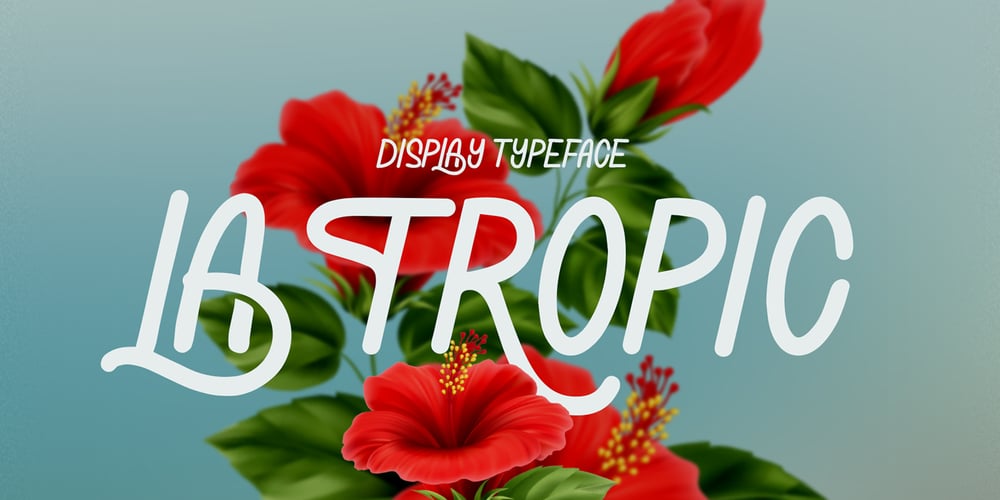
CAS La Tropic
CAS La Tropic font
CAS La Tropic Font Family was designed by Wantara Putra and published by Casloop Studio. CAS La Tropic contains 1 styles and family package options. Introducing La Tropica groovy tropical handwriting font, embodies craftsmanship with a natural flow. Its chill and happy style brings crisp modernity to your designs. This font is perfect for inclusive accessibility, adding a touch of boho and Mediterranean vibes to websites, packaging, logos, and more. Explore the unique and original charm of La Tropic, reminiscent of sea, ocean, and the joyous atmosphere of Summer solstices.Experience the superior features of La Tropic – a font that invites you to relax and embrace the harmony of hot Surfing Beach, Resort Holiday, Travel Vocation, and Paradise Party aesthetics. Whether designing surfboards, signs, or holiday cards, La Tropic’s versatility shines through, providing a unique and original choice for a wide range of projects.Supported Languages: Bosnian, Catalan, Czech, Danish, German, English, Spanish, Estonian, Finnish, French, Bergen, Irish, Croatian, Hungarian, Icelandic, Italian, Lithuanian, Tan, Latvian, Maltese, Dutch, Norwegian, Polish, Haas, Portuguese, Bebas, Romanian, Slovak, Slovenian, Albanian, Swedish, Turkish.Features: Uppercase & Lowercase, Numbers and punctuation, Ligatures, Multilingual